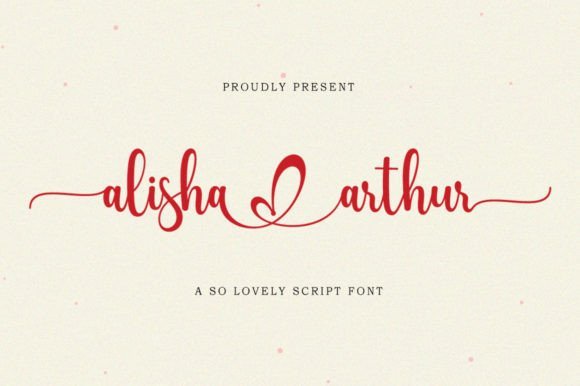
Introduction to Alisha Arthur Font
Alisha Arthur with its intricate swirls and graceful curves, this stylish and elegant script font exudes sophistication and charm.
Its slim and flowing strokes evoke a sense of movement and grace, making it perfect for upscale branding, wedding invitations, and other high-end designs that require a touch of refinement and luxury Keep in mind that the font is PUA encoded, meaning that you can access all delightful glyphs and swashes effortlessly.
Key Features of Alisha Arthur Font
Why Choose Alisha Arthur Font?
Alisha Arthur Font offers exceptional quality and versatility, making it a valuable addition to your design toolkit. Whether you’re creating for personal projects or commercial use, Alisha Arthur Font delivers professional results.